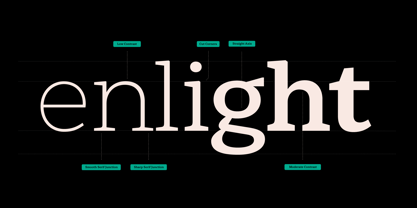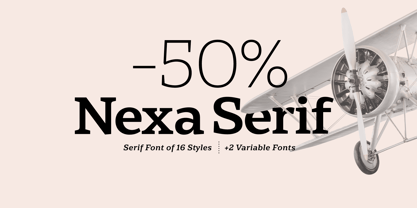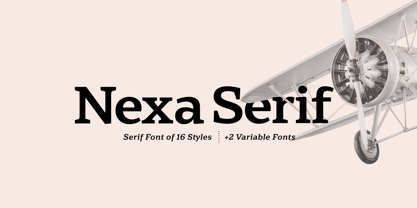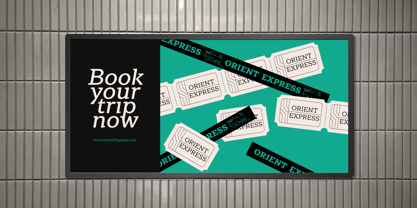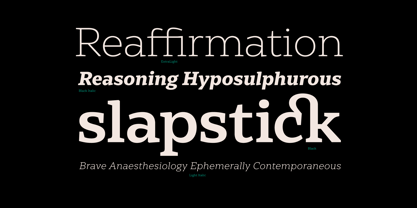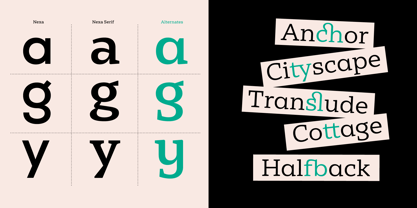
Nexa Serif
The Nexa Serif Font Family was designed by Ani Petrova, Vika Usmanova, Kiril Zlatkov, Ivelina Martinova and published by Fontfabric. Nexa Serif contains 18 styles and family package options.
Nexa Serif is inspired by our bestselling Nexa, crafted to complement it while standing strong as an independent typeface. For years, we envisioned a serif counterpart that maintains Nexa’s geometric simplicity while introducing a sophisticated, intricate touch. Our goal? To create a typeface that blends clean construction with refined details for seamless pairing.
We achieved this by preserving key letter proportions and contrast while infusing unique character forms—special versions of letters like ‘a’, ‘g’, and ‘y’ draw direct inspiration from Nexa’s sans-serif foundation. The result is a versatile serif enriched with functional and stylistic ligatures, making it ideal for both body text and eye-catching headlines.
Whether used alongside Nexa or on its own, Nexa Serif is a powerful tool for designers looking for a balanced, elegant, and highly legible font.
Designers: Ani Petrova, Vika Usmanova, Kiril Zlatkov, Ivelina Martinova